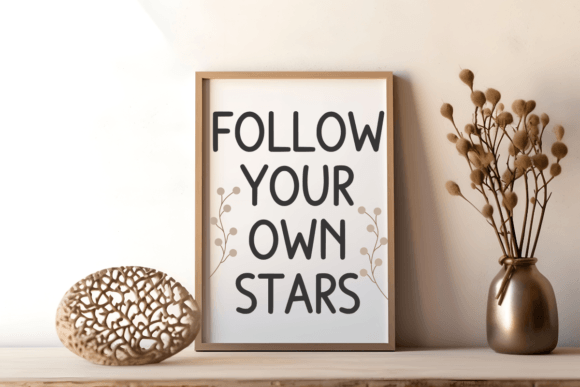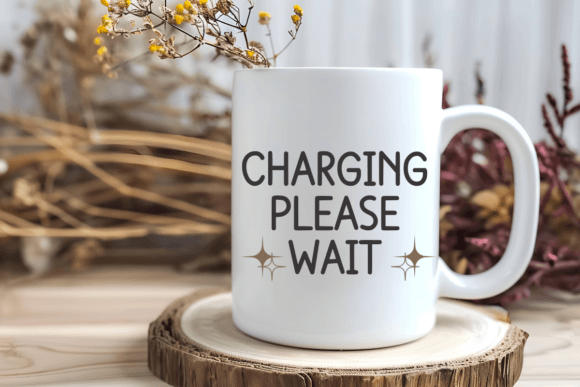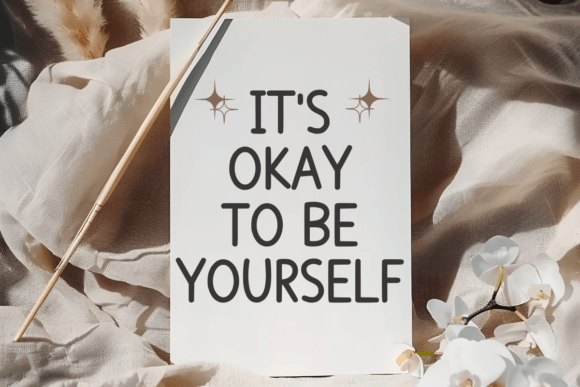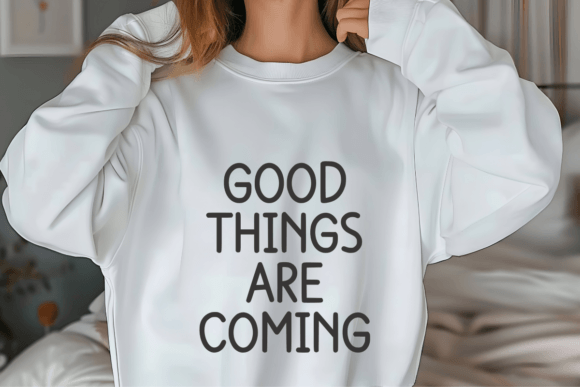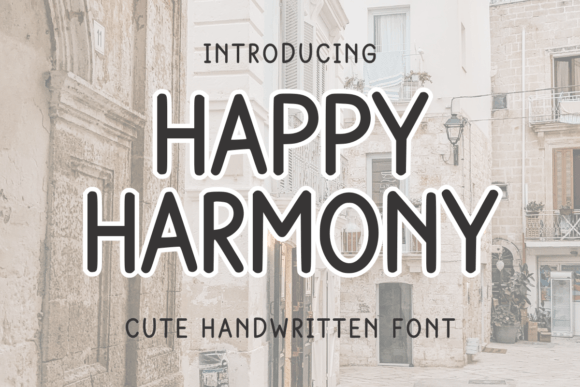
Introducing Happy Harmony Font: The Perfect Companion for Your Creative Projects
Are you a designer, crafter, or DIY enthusiast looking for a font that can add a touch of personality to your projects? Look no further than Happy Harmony Font, a simple and casual handwritten font that’s perfect for a wide range of creative applications. In this article, we’ll take a closer look at the features and benefits of Happy Harmony Font, and explore how it can elevate your designs and crafting projects.
What is Happy Harmony Font?
Happy Harmony Font is a beautiful, handwritten font that’s designed to be versatile and easy to use. Its simple and casual style makes it perfect for a variety of projects, from t-shirts and posters to journals and scrapbooks. The font’s friendly and approachable feel makes it ideal for creating designs that are both fun and functional.
Key Features of Happy Harmony Font
- Simple and Casual Style: Happy Harmony Font has a relaxed, handwritten style that’s perfect for creating designs that feel approachable and friendly.
- Versatile: This font is suitable for a wide range of projects, from t-shirts and posters to journals and scrapbooks.
- Easy to Read: The font’s clear and legible design makes it easy to read, even at smaller sizes.
- Perfect for Crafting: Happy Harmony Font is ideal for crafters who love to work with Cricut, SVG quotes, and other DIY projects.
Uses for Happy Harmony Font
Happy Harmony Font is perfect for a wide range of creative projects, including:
- T-Shirts: Create custom t-shirts with fun and quirky designs that showcase your personality.
- Posters: Design eye-catching posters that grab attention and make a statement.
- Quotes: Add a touch of inspiration to your quotes with a font that’s both fun and elegant.
- Journals and Scrapbooks: Use Happy Harmony Font to add a personal touch to your journals and scrapbooks.
- Planners: Create custom planners that are both functional and stylish.
- Silhouettes: Use Happy Harmony Font to add a touch of personality to your silhouette designs.
- Cricut and SVG Quotes: Happy Harmony Font is perfect for Cricut and SVG quote projects, including custom signs, banners, and more.
- Mugs and Tote Bags: Create custom mugs and tote bags with fun and quirky designs that make great gifts.
- Key Chains and Logos: Use Happy Harmony Font to create custom key chains and logos that showcase your brand’s personality.
- Labels and Cards: Add a touch of personality to your labels and cards with Happy Harmony Font.
- Invitations and Stickers: Use Happy Harmony Font to create custom invitations and stickers that are both fun and functional.
Why Choose Happy Harmony Font?
- Unique and Personalized Designs: Happy Harmony Font allows you to create unique and personalized designs that showcase your personality and style.
- High-Quality Design: Happy Harmony Font is designed to be high-quality and legible, making it perfect for both digital and print projects.
Happy Harmony Font is a versatile and easy-to-use font that’s perfect for designers, crafters, and DIY enthusiasts. Its simple and casual style makes it ideal for a wide range of creative projects, from t-shirts and posters to journals and scrapbooks. With its friendly and approachable feel, Happy Harmony Font is sure to become a go-to font for anyone looking to add a touch of personality to their designs. So why wait? Download Happy Harmony Font today and start creating your own unique and personalized designs!